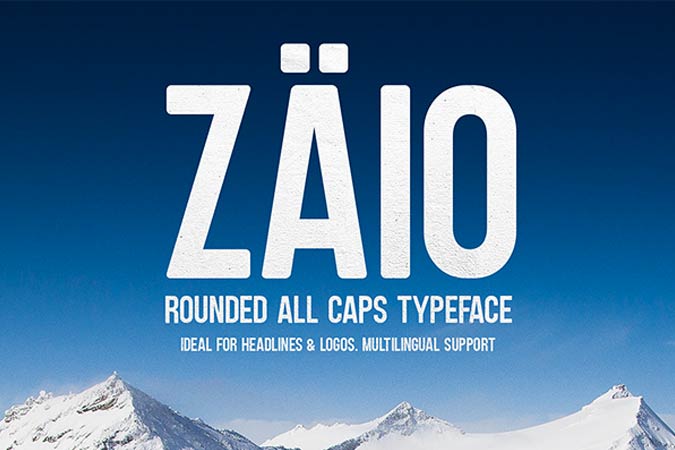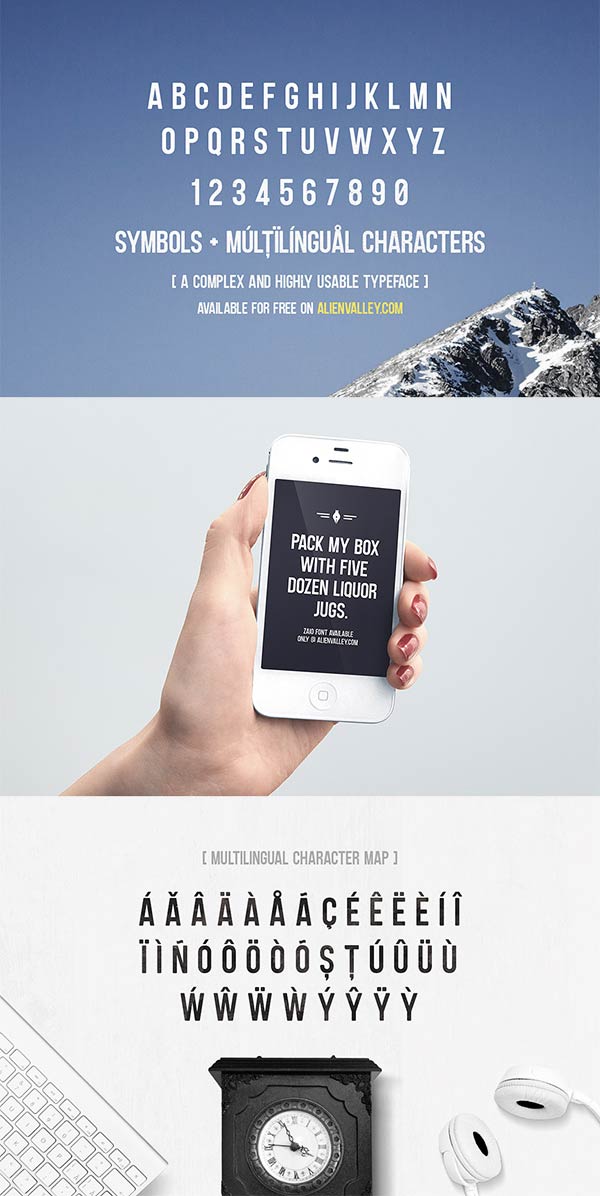
Zaio Rounded Font is a free-to-download display font that was inspired by Bebas Neue font. It comes with only uppercases, and with its condensed structure, making this font suitable for headlines and big text displays.